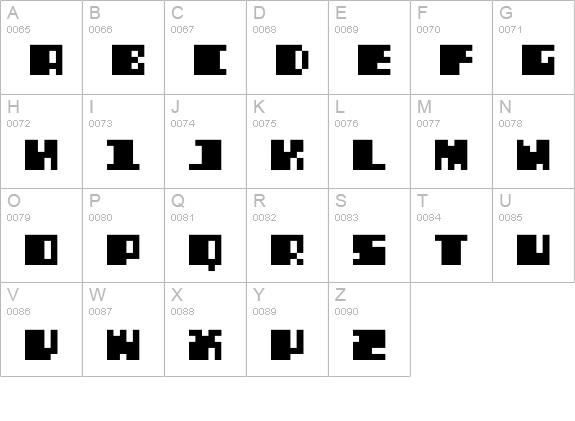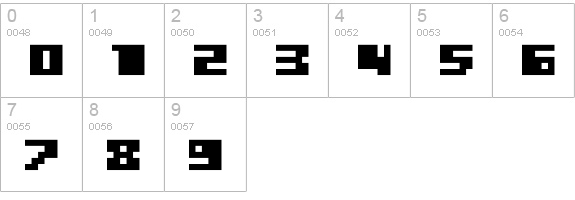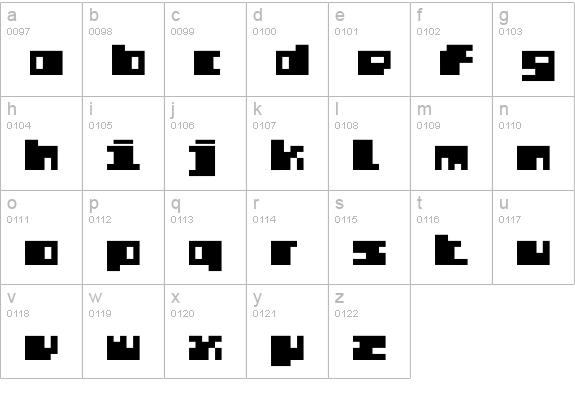
DS PTRLSuper Font Details
DS PTRLSuper font is a visually striking and versatile typeface that is sure to make a statement in any design project. With its unique and futuristic design, this font is perfect for branding, headlines, posters, and more. The geometric shapes and clean lines of DS PTRLSuper font give it a modern and edgy look that will set your designs apart. The best part? DS PTRLSuper font is completely free to download at FontsMarket.com. Whether you're a professional designer looking to add a fresh new font to your collection or a hobbyist looking to spice up your projects, DS PTRLSuper font is a fantastic choice. Don't miss out on this amazing opportunity to enhance your designs with this eye-catching and dynamic font. Download DS PTRLSuper font today and let your creativity soar!